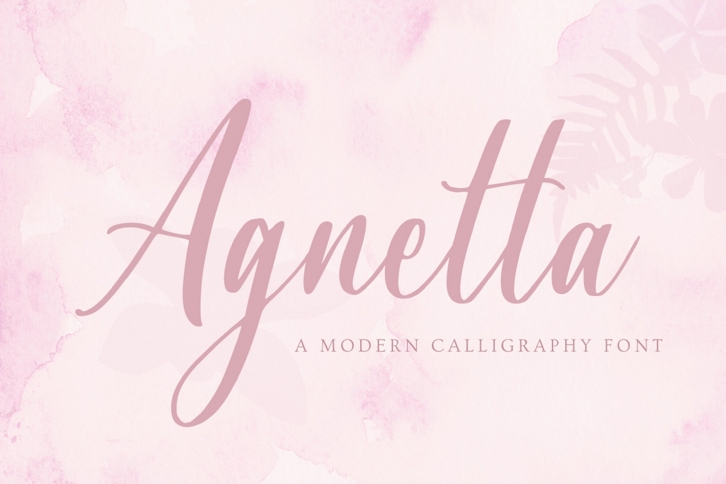
Agnetta is a beautiful font that was designed by Graphue. It's a great choice for designers and creatives who need such a font. It was released on July 16, 2020 and the file size is 10.83 MB. Agnetta may give a more youthful, expressive and casual look to your project. It is a very beautiful, refined, elegant, and high-quality font.